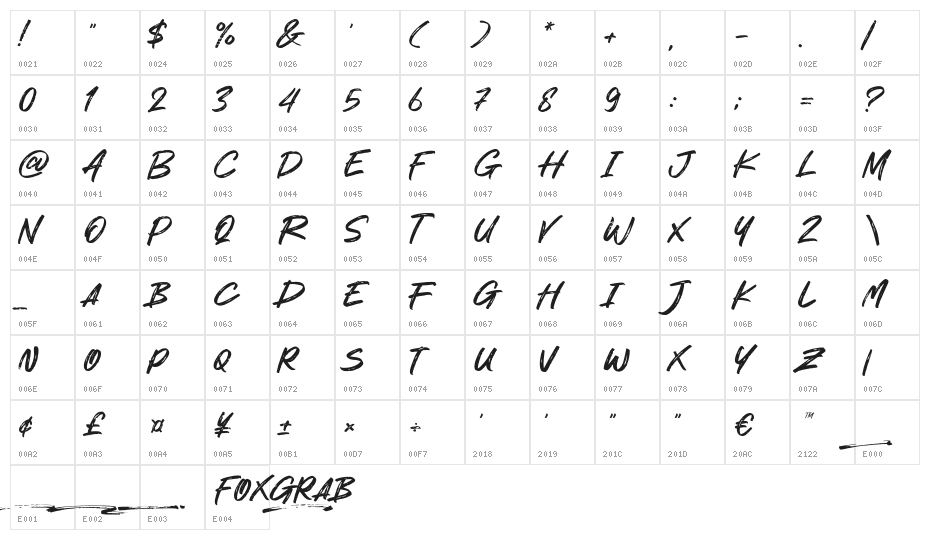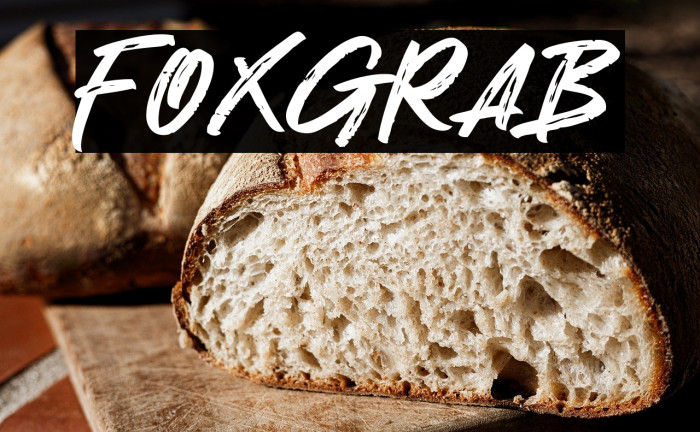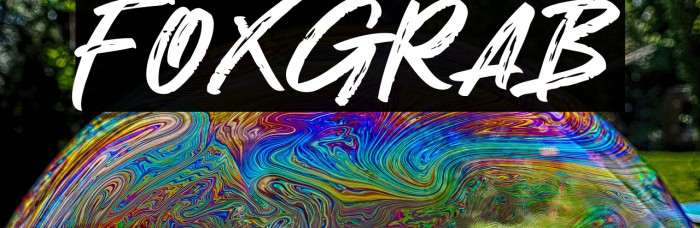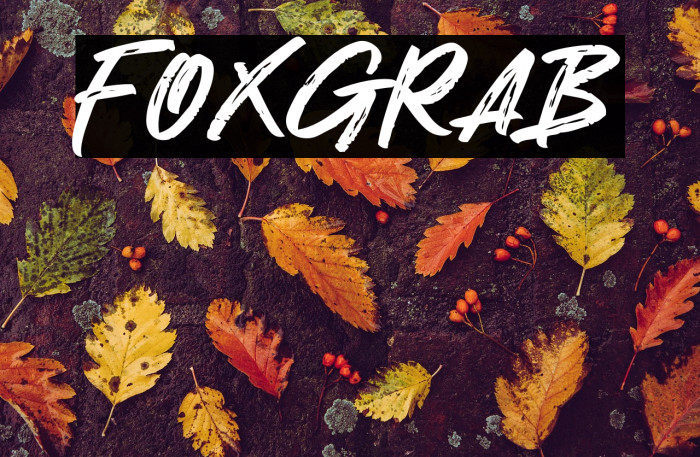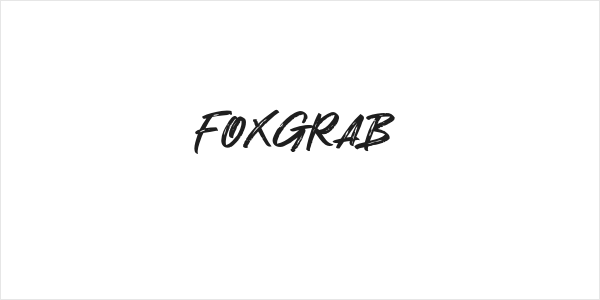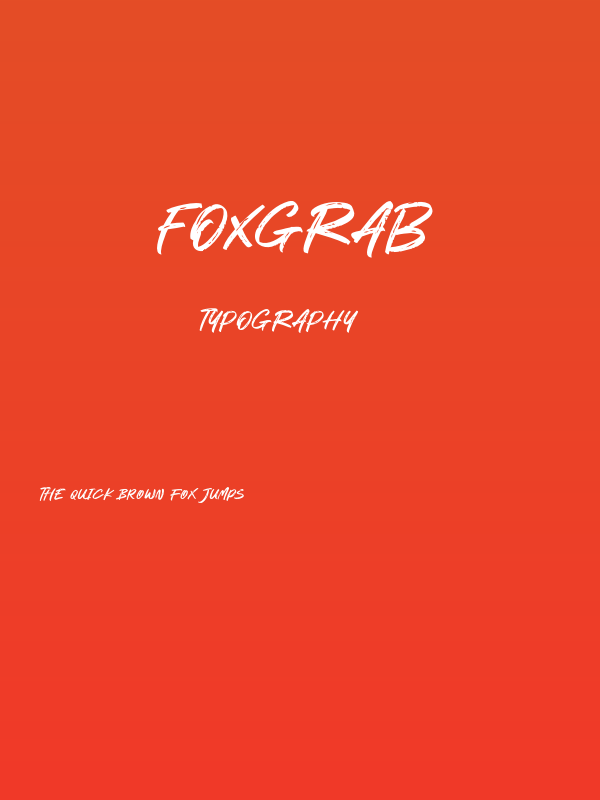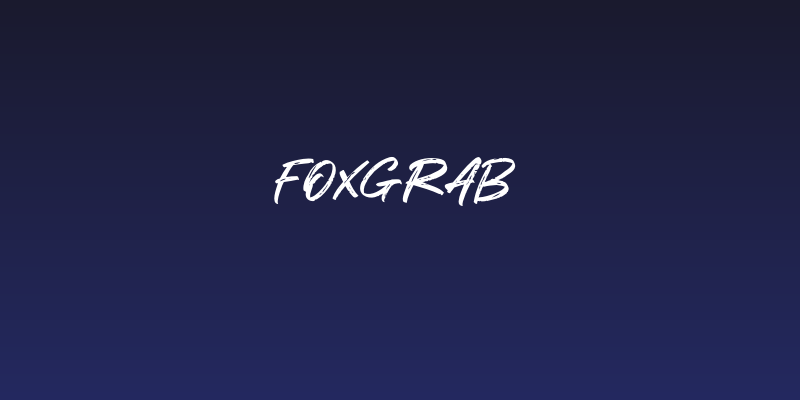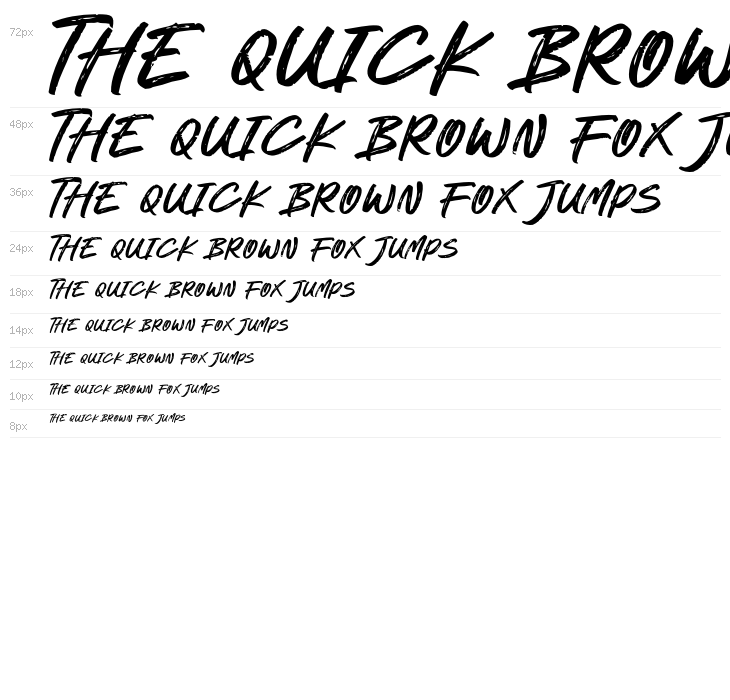
Foxgrab Font
Foxgrab Description
This font exudes a dynamic and energetic style, characterized by its bold and expressive brush strokes. Each letter is crafted with a sense of motion, giving it a lively and spontaneous appearance. The uppercase and lowercase letters maintain a consistent flow, while the numbers and special characters complement the overall aesthetic. The font's design is reminiscent of handwritten calligraphy, with a modern twist that makes it suitable for a variety of creative applications. Its unique style is perfect for projects that require a personal and artistic touch.
| Use Case | Logos, Headlines, Posters |
| Proposed Projects | Ideal for branding, posters, invitations, and any project that requires a personal and artistic touch. |